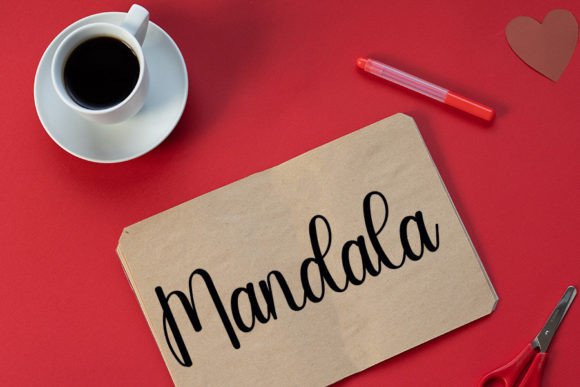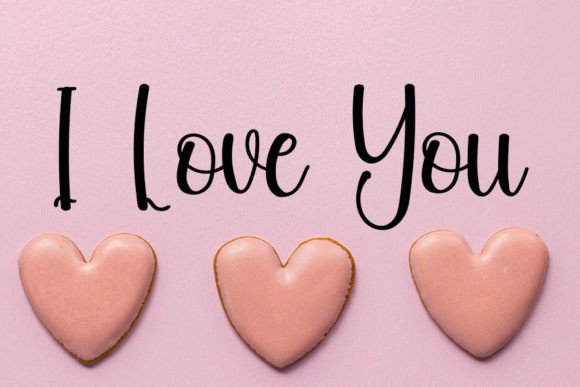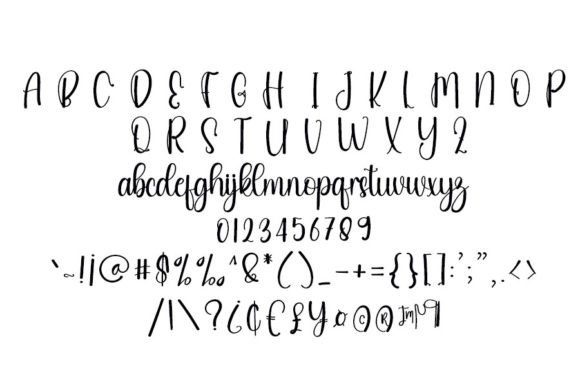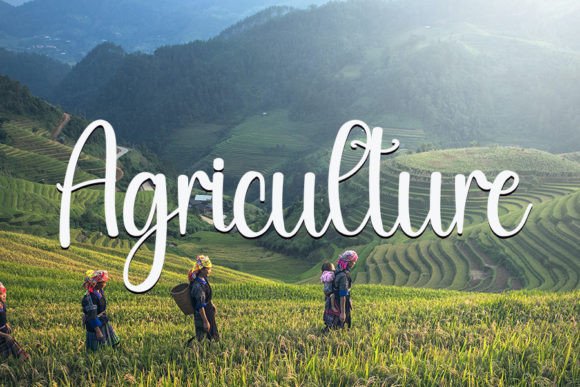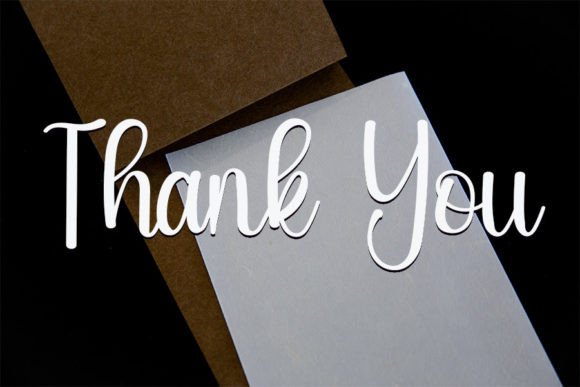
Smile Font
About Smile Font
Smile font is a friendly and approachable handwritten typeface designed with care to become a beloved favorite among designers and creatives. This font adds a personal and warm touch to any project, helping your ideas come alive with charm and authenticity.
Warm and Inviting Style
The key feature of Smile font is its friendly, natural handwriting style. It conveys warmth and approachability, making it ideal for designs that want to connect emotionally with the audience. Its gentle curves and balanced letterforms provide both elegance and readability.
Perfect for Various Creative Uses
This versatile font is well-suited for many design applications, including:
• Greeting cards and invitations
• Branding and logo design
• Social media graphics and posts
• Personal letters and notes
• Packaging and product design
Whether you’re creating casual or formal projects, Smile font adds a welcoming and heartfelt element that enhances the overall feel.
Bringing Projects to Life with Personality
Using Smile font gives your work a lively and engaging character. The handwritten style encourages a personal connection, making your designs stand out. It’s a font that brings joy and freshness, turning ordinary designs into memorable creations.
Summary
In conclusion, Smile fon is a friendly and carefully designed handwritten typeface perfect for greeting cards, branding, social media, and more. Its warmth and personality make it a great addition to any creative project.